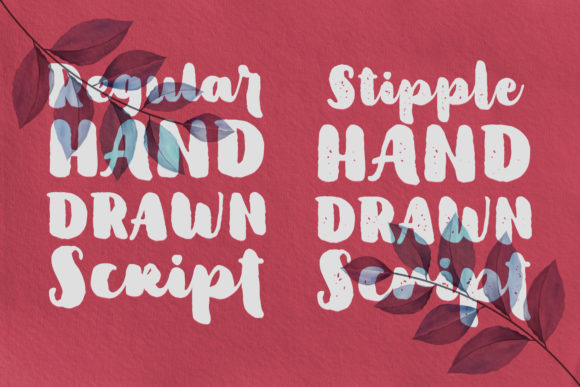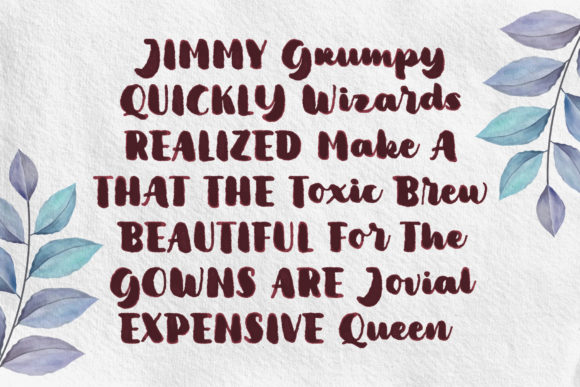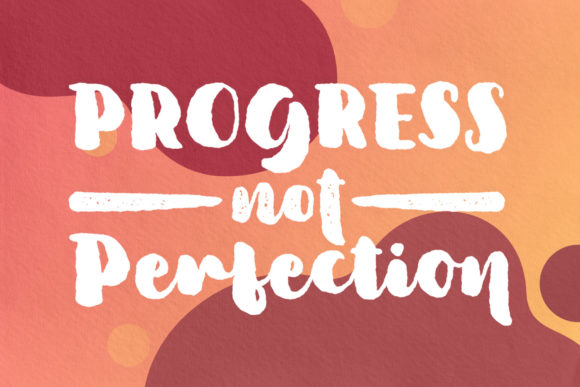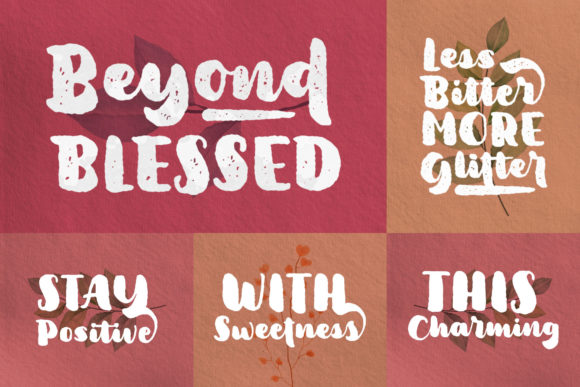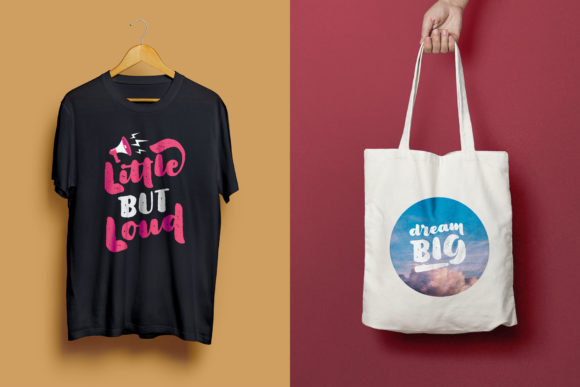
Gelly Font: The Perfect Blend of Modern and Quirky for Designers and Crafters
In the world of typography, fonts play a crucial role in conveying the tone and personality of a brand or project. For designers and crafters looking for a modern and fun handwritten font, Gelly Font is an excellent choice. Created using a brush pen, Gelly Font brings a clean and quirky touch to any design, making it perfect for logos, branding, social media, and DIY projects.
What Makes Gelly Font Stand Out?
Gelly Font is a unique and versatile font that stands out from the crowd due to its distinctive characteristics. Here are a few features that make Gelly Font a great addition to any design project:
- Modern and Fun: Gelly Font has a modern and playful feel to it, making it perfect for designs that require a fresh and youthful approach.
- Handwritten with a Brush Pen: The font’s handwritten style, created using a brush pen, gives it a personal and organic feel that is hard to replicate with traditional fonts.
- Clean and Quirky: Gelly Font strikes the perfect balance between clean lines and quirky charm, making it suitable for a wide range of design projects.
Perfect for Logos, Branding, and Social Media
Gelly Font is an excellent choice for designers looking to create logos, branding materials, and social media graphics that stand out. Its modern and fun style makes it perfect for:
- Logos: Create unique and memorable logos that reflect your brand’s personality with Gelly Font.
- Branding: Use Gelly Font to develop a consistent brand voice and visual identity across all your marketing materials.
- Social Media: Add a touch of personality to your social media graphics, posts, and stories with Gelly Font.
Ideal for Crafty DIY Projects
Crafters and DIY enthusiasts will love Gelly Font for its versatility and charm. Use it to add a personal touch to:
- Handmade Cards: Create one-of-a-kind greeting cards and invitations with Gelly Font.
- DIY Crafts: Add a touch of personality to your DIY crafts, such as scrapbooking, journaling, and paper crafting.
- Signs and Posters: Use Gelly Font to create eye-catching signs and posters for events, parties, or promotions.
Tips for Using Gelly Font Effectively
To get the most out of Gelly Font, here are some tips to keep in mind:
- Experiment with Colors: Gelly Font looks great in a variety of colors, so don’t be afraid to experiment and find the perfect hue for your design.
- Mix and Match: Combine Gelly Font with other fonts to create a unique and visually appealing design.
- Play with Sizes: Use Gelly Font in different sizes to create visual hierarchy and add emphasis to your design.
Gelly Font is a modern and fun handwritten font that is perfect for designers and crafters looking to add a touch of personality to their projects. With its clean and quirky style, Gelly Font is versatile enough to be used in a wide range of design applications, from logos and branding to social media and DIY crafts. So why not give Gelly Font a try and see how it can elevate your designs?